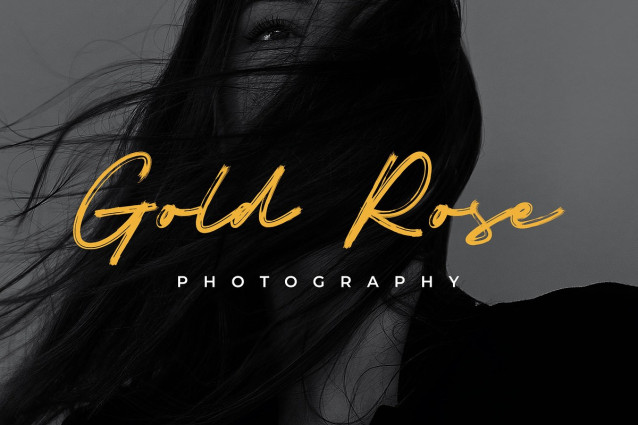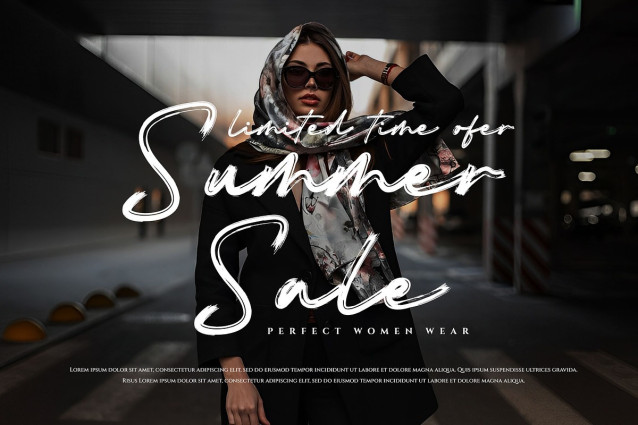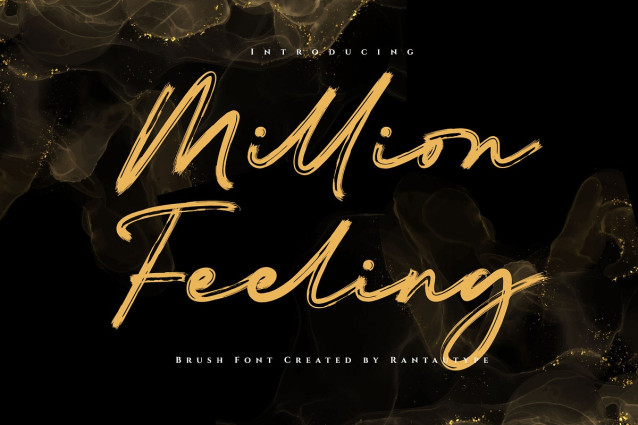
Million Feeling Font
Million Feeling is script brush font which can be interpreted professional with a natural handmade. We keep this font looks modern, readable, stylish, catchy and easy to use. Million Feeling come with ligature and multilingual support.
Million Feeling is a perfect choice for any creative endeavor, chic, lifestyle design such as logos, title, watermark on photography, cover, branding, display and magazine, wedding event, quotes, album cover, business card, corporate, business project and many other design project. Million Feeling here to make your work to high level!!!